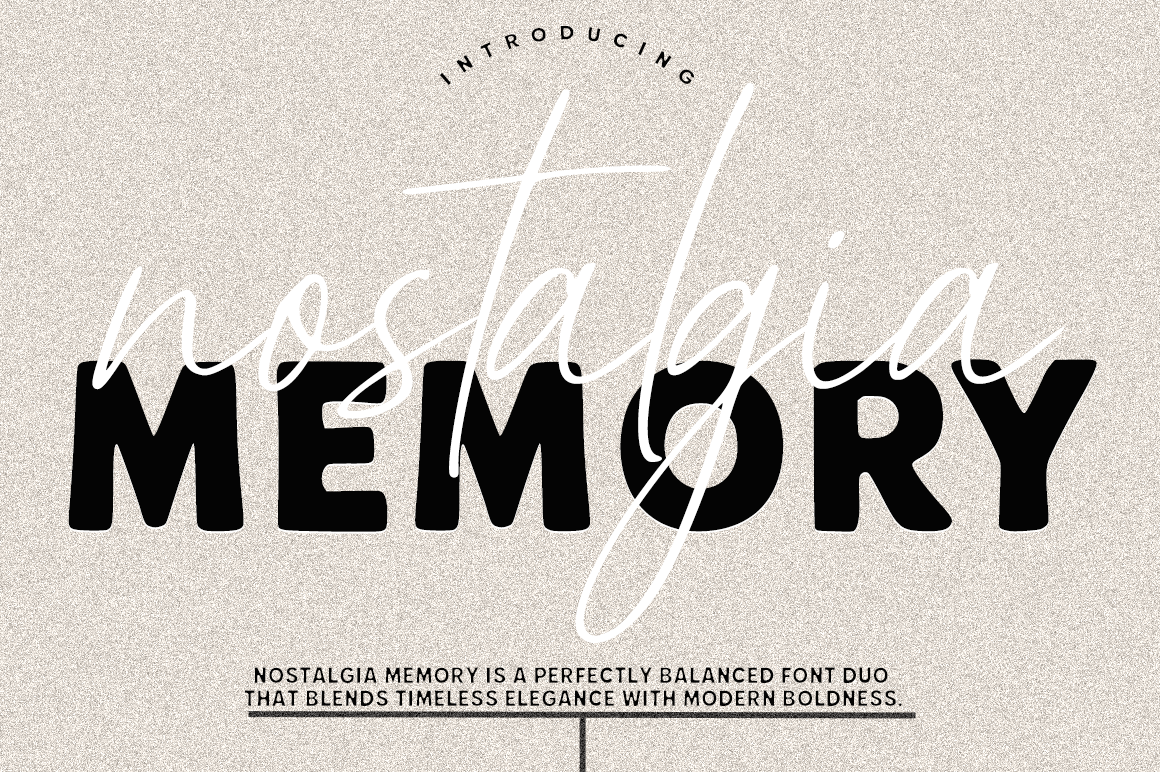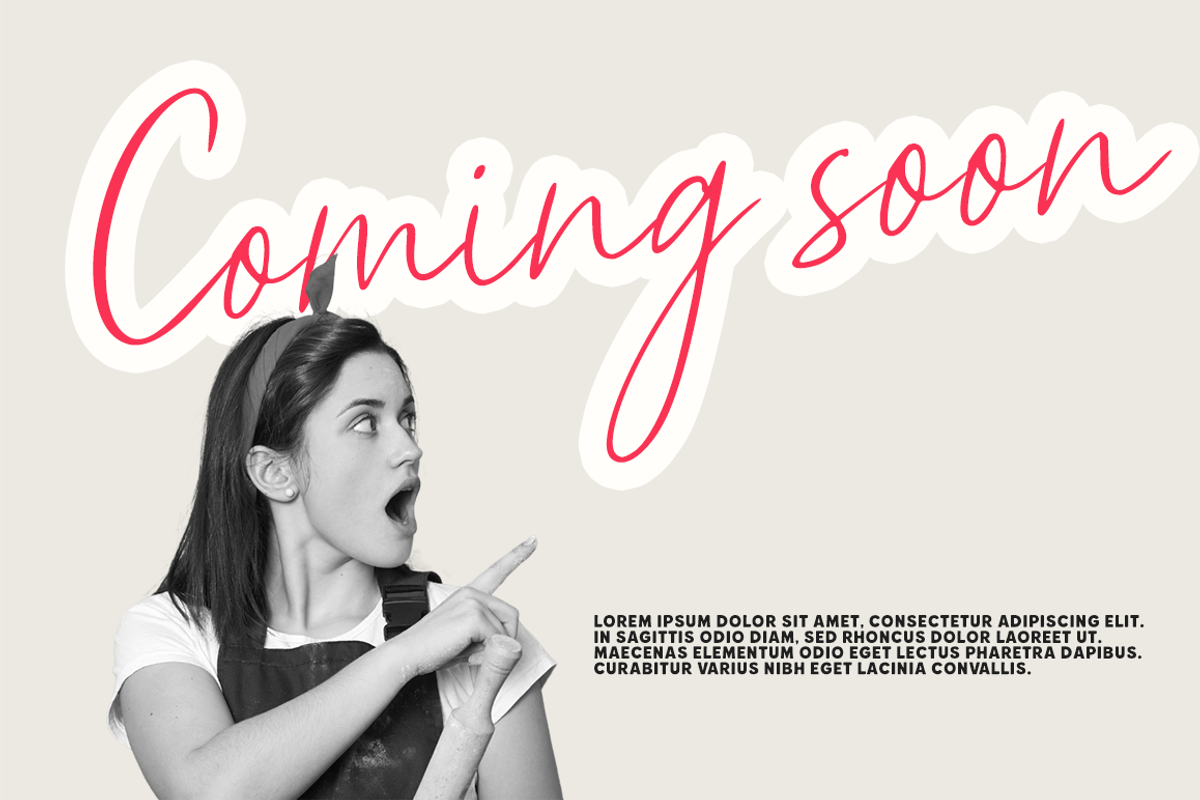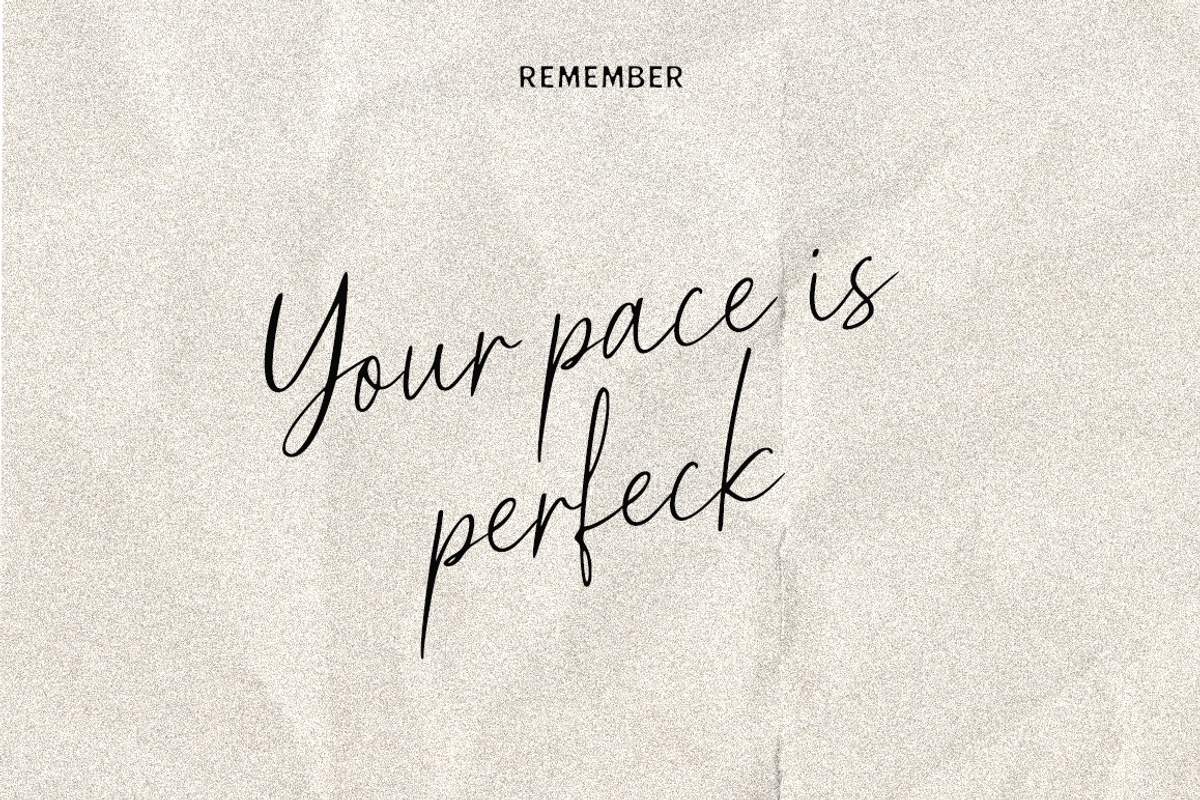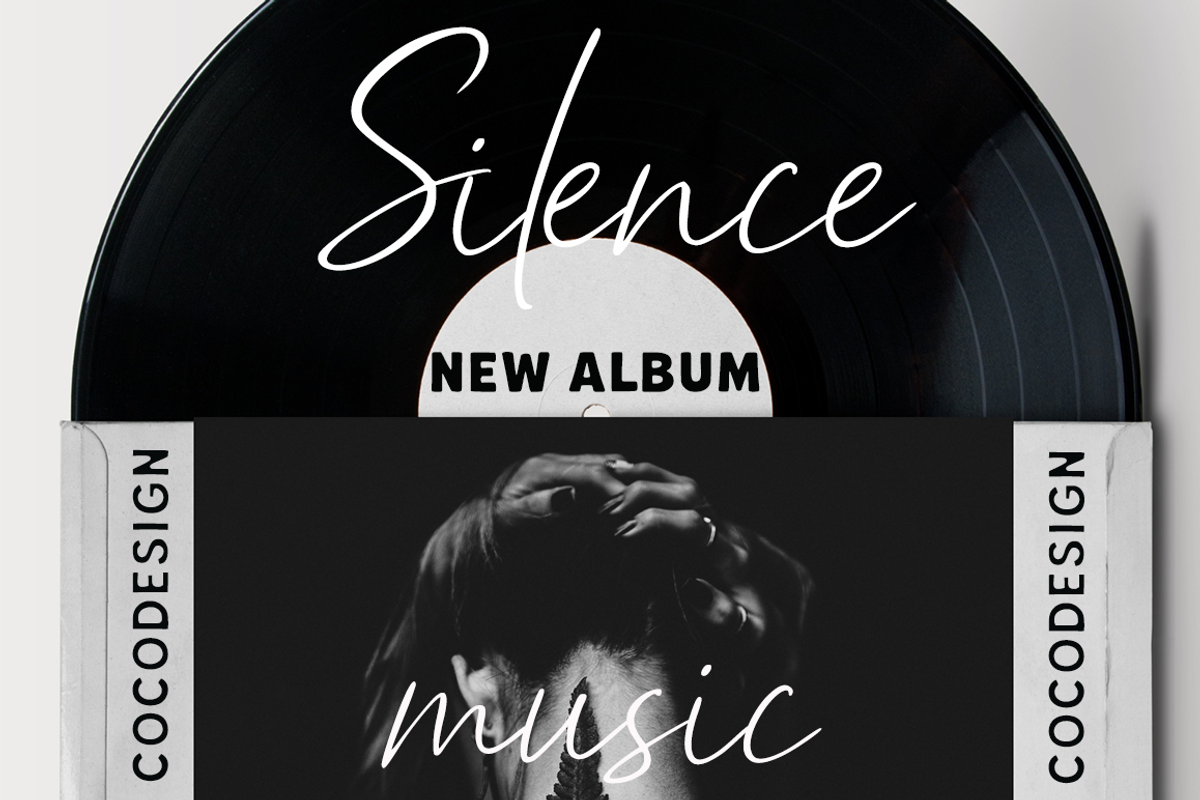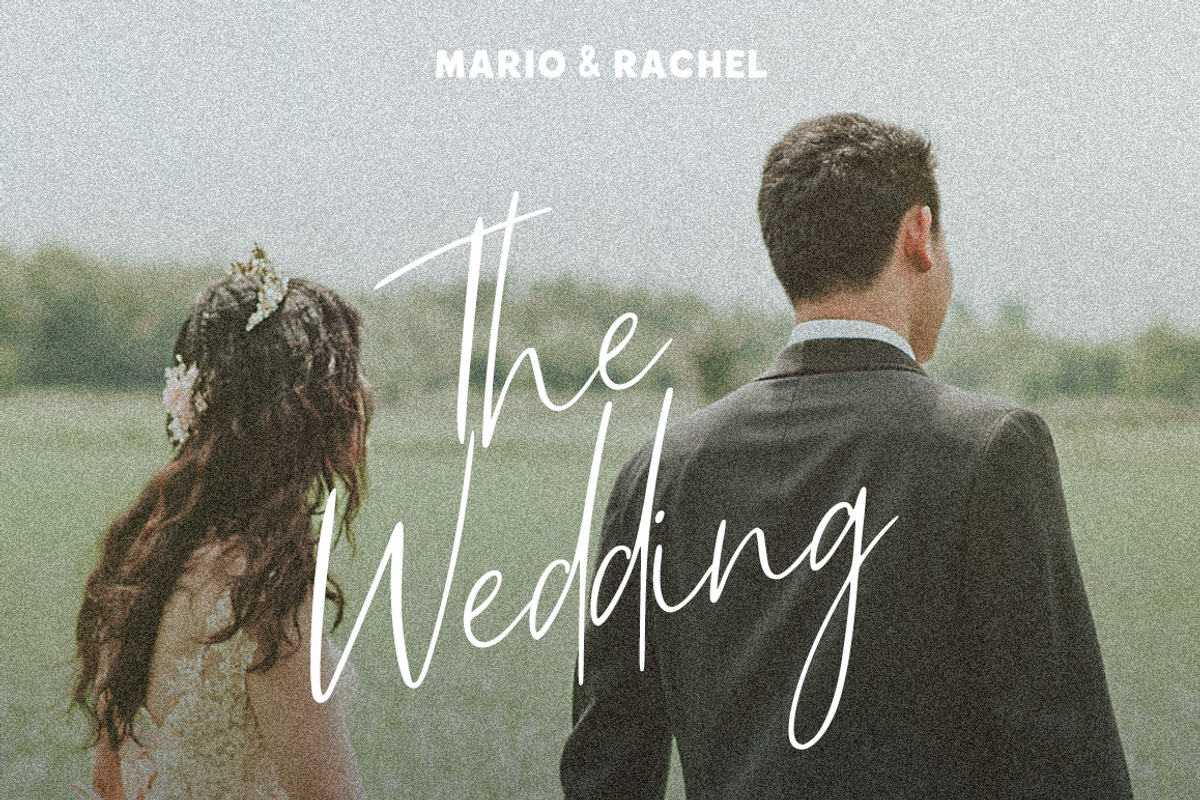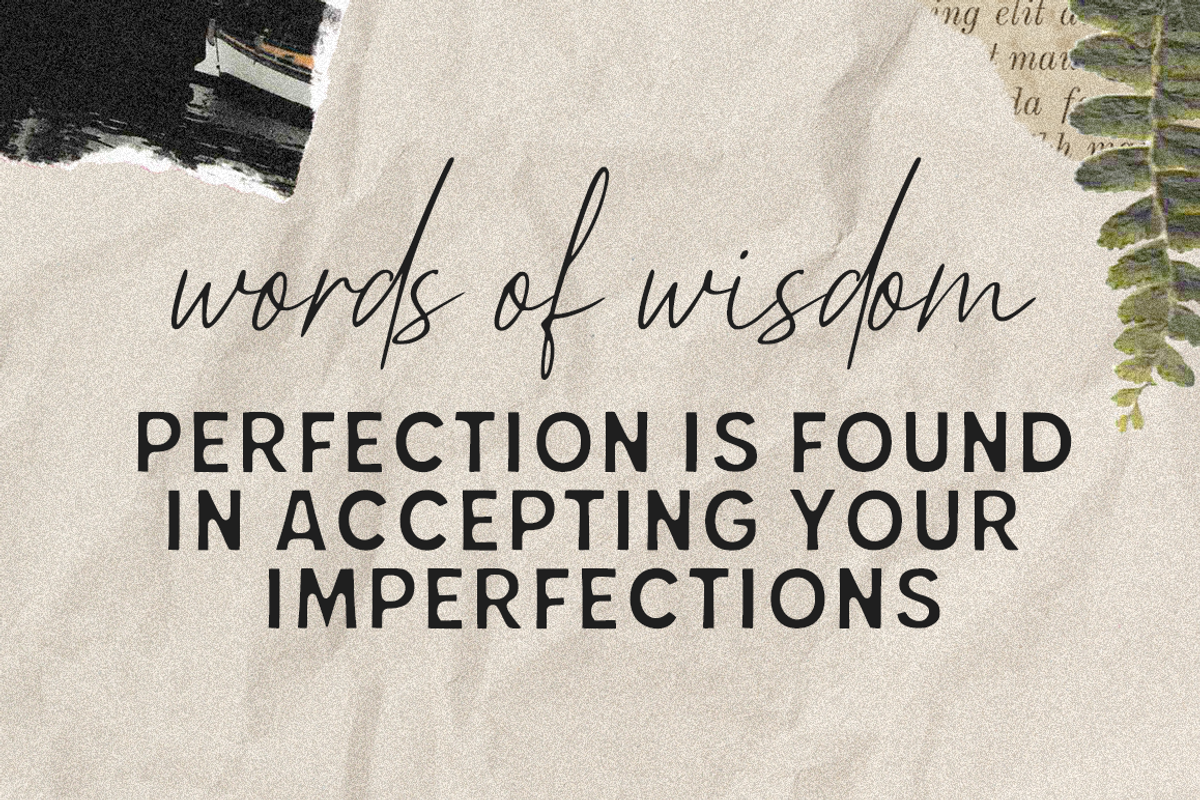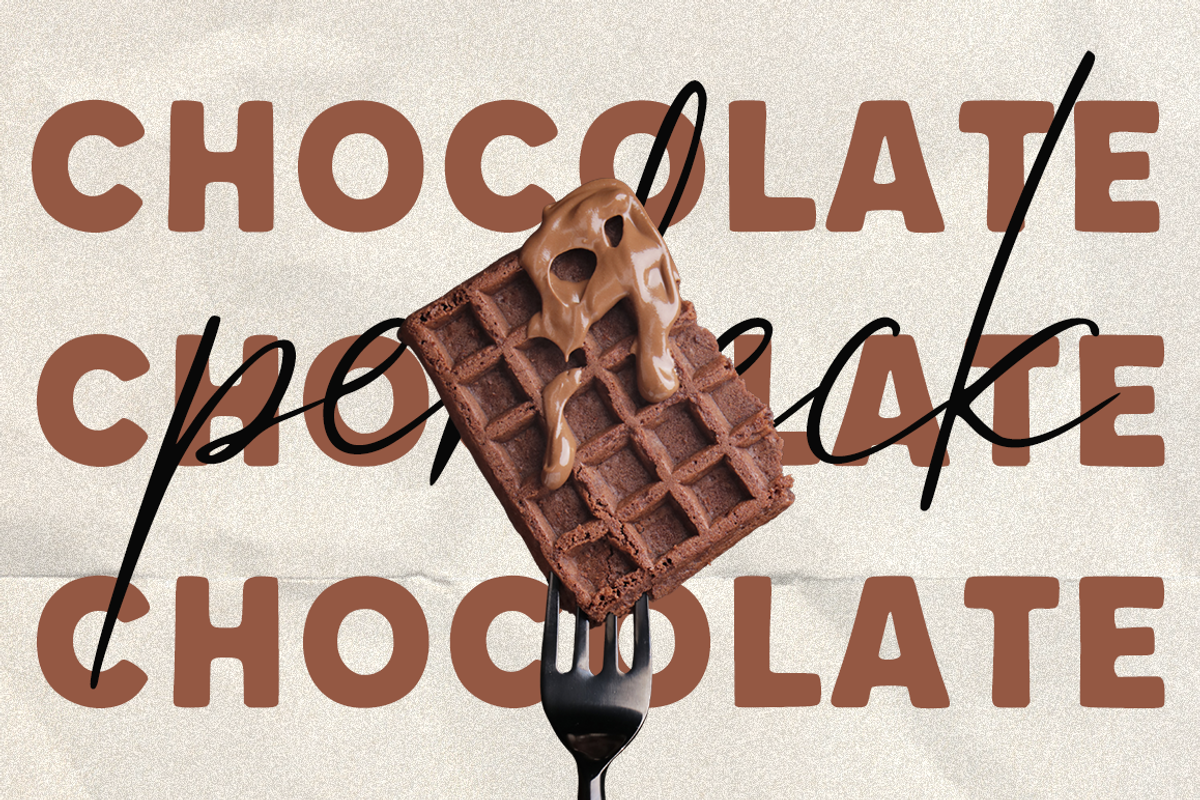
Nostalgia Memory — A Timeless Font
✦ Nostalgia Memory — A Timeless Font Duo
Nostalgia Memory is a perfectly balanced font duo that blends timeless elegance with modern boldness. The set combines a graceful handwritten script with a bold retro sans, creating a harmonious contrast that captures both sophistication and strength.
Ideal for logos, packaging, invitations, posters, editorial design, and social media visuals, this duo adds character and style to any creative project.